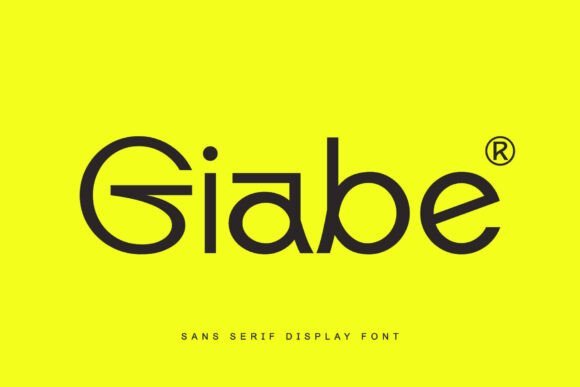
The Perfect Font for Your Next Design Project
As designers, we’ve all been there – staring at a blank canvas, trying to bring our ideas to life. But sometimes, it’s not about creating something entirely new, but rather finding the right tool to make our vision shine. That’s where the Giabe Font comes in – a modern sans serif display font designed to deliver strong visual impact while remaining highly readable.
With its smooth curves, balanced proportions, and distinctive geometric touch, the Giabe Font is the perfect addition to any design project. Whether you’re building a modern brand identity or crafting sleek visual content, this font brings clarity, personality, and professional polish to your typography. For designers, the Giabe Font is a valuable asset, offering versatility across both print and screen, making it ideal for branding, UI/UX design, and modern marketing materials.
Giabe Font Key Features
- Font Family: Giabe is a sans-serif font family designed for use in digital interfaces and publications.
- Font Size: Giabe comes in 7 weights, ranging from Light to Black, each with its own unique characteristics.
- Unique Characteristics: Giabe features a geometric sans-serif design with a focus on legibility and clarity, making it ideal for body text and headlines.
- Language Support: Giabe supports a wide range of languages, including Latin, Cyrillic, and Greek scripts.
Giabe Font Review
Overall, I found Giabe to be a decent font. While it’s not a game-changer, it has some redeeming qualities. Here are a few things I think work well:
- ✨ Elegant feel: Giabe has a nice, refined look to it. The curves are smooth and the proportions are well-balanced.
- ✨ High legibility: The font is easy to read, even at smaller sizes, which is a must-have for any font.
- ✨ Versatility: Giabe can be used in a variety of contexts, from body text to headings, and even for display purposes.
- ⚠️ Lack of personality: Giabe feels a bit generic and doesn’t really stand out from the crowd. It’s a safe choice, but it won’t make a statement.
- ⚠️ Limited expressiveness: The font doesn’t have a lot of character or flair, which can make it feel a bit flat.
Overall, I’d say Giabe is a solid, if unremarkable, font. It’s a good choice if you’re looking for something easy to read and versatile, but if you want a font that really pops, you might want to keep looking.
Giabe Font is commonly used for:
- Titles and headings
- Presentations and documents
- Editorial and publishing materials
Alternatives to Giabe Font
Lato is a sans-serif font designed by Łukasz Dziedzic. It is a modern and clean font suitable for digital use, particularly for titles and headings. Lato is a good alternative to Giabe Font for designers who want a more contemporary look and feel.
Compared to Giabe Font, Lato has a more geometric and minimalist design, making it ideal for digital interfaces and modern designs. However, it lacks the elegance and sophistication of Giabe Font.
Merriweather is a classic serif font designed by Eben Sorkin. It is a traditional and elegant font suitable for print and digital use, particularly for body text and headings. Merriweather is a good alternative to Giabe Font for designers who want a more traditional and timeless look.
Compared to Giabe Font, Merriweather has a more classic and formal design, making it ideal for academic and professional designs. However, it lacks the modernity and versatility of Giabe Font.
Montserrat is a sans-serif font designed by Julieta Ulanovsky. It is a modern and urban font suitable for digital use, particularly for titles and headings. Montserrat is a good alternative to Giabe Font for designers who want a more edgy and contemporary look.